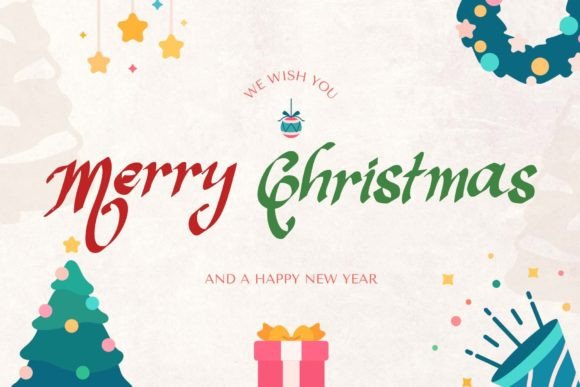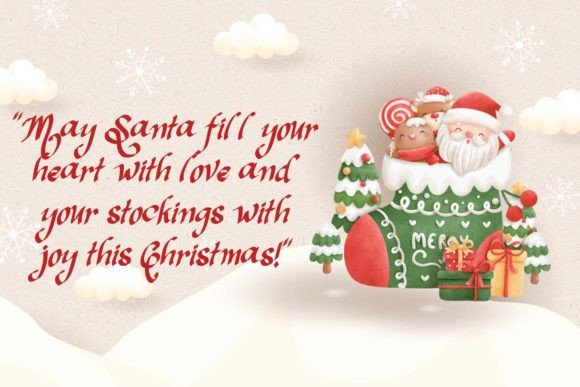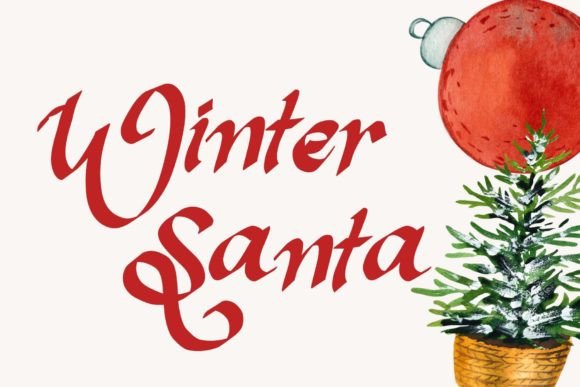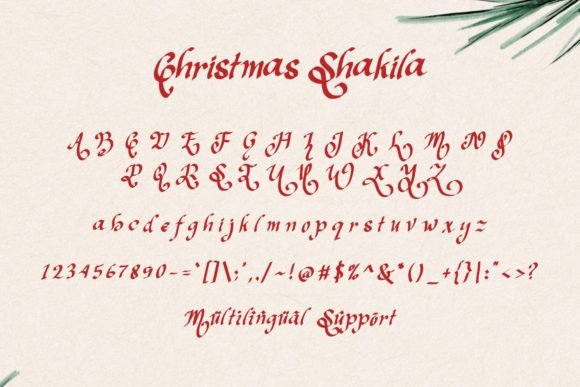
The Magic of Christmas Shakila Font: A Designer’s Delight
It’s that time of the year again – the season of sparkle, shine, and joyful designs. As a designer, I recall a particularly stressful project where I was tasked with creating a Christmas-themed banner for a client’s holiday party. The catch? I had to find the perfect font that would capture the essence of the season. After hours of scouring the internet, I stumbled upon the stunning “Christmas Shakila” font. And let me tell you, it was love at first sight! 💕
So, what makes Christmas Shakila font so special? Here are the things that I absolutely adore:
• ✨ Elegant and beautiful handwritten design
• ✅ Multilingual support for global designs
• ✅ Uppercase, lowercase, numerals, punctuation, and more!
• ⚠️ One minor quirk: some users might find the font a tad too ornate for very small text sizes
While the font is incredibly versatile, I did notice a few limitations. For instance, it might not be the best choice for very small text sizes or body text, as it can be a bit too ornate. However, for headings, titles, and decorative text, it shines! ✨
The Story Behind Christmas Shakila Font
According to its creators, Christmas Shakila was inspired by the magic of the holiday season. The font’s elegant and beautiful design is meant to evoke feelings of joy, love, and celebration. Whether you’re a designer, crafter, or creative hobbyist, this font is sure to become a favorite in your collection.
Font Name Christmas Shakila Font
Author yogaletter6
Does Christmas Shakila font support multilingual characters? Yes, the font includes multilingual support for global designs.
In conclusion, Christmas Shakila font is a stunning and versatile addition to any designer’s toolkit. With its elegant design, multilingual support, and OpenType features, it’s perfect for a wide range of projects, from Christmas and winter designs to weddings and Valentine’s Day. So go ahead, get creative, and make this holiday season one to remember! 🎄